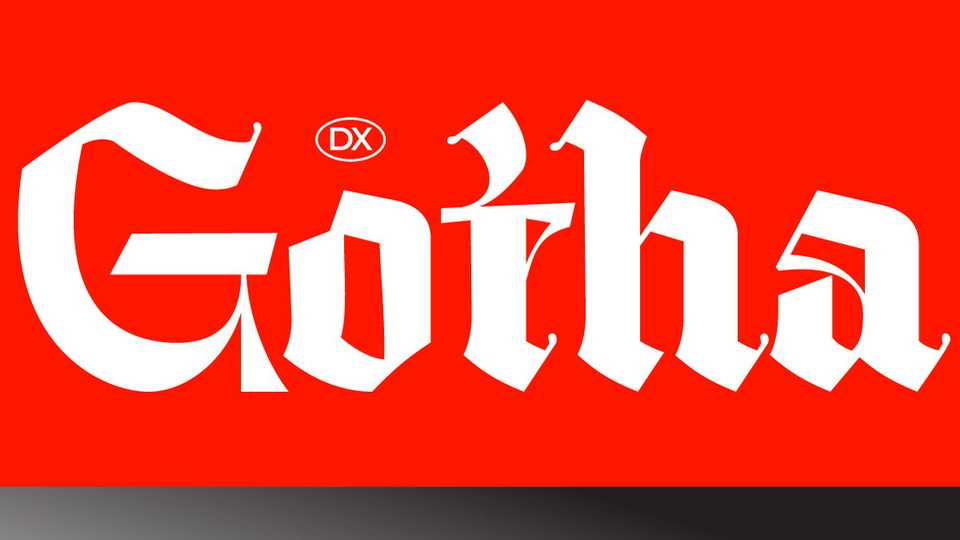
Download Dx Gotha font, a contemporary blackletter typeface. The character set is meticulously designed, emphasizing the efficient arrangement of a maximum number of letters in minimal space.